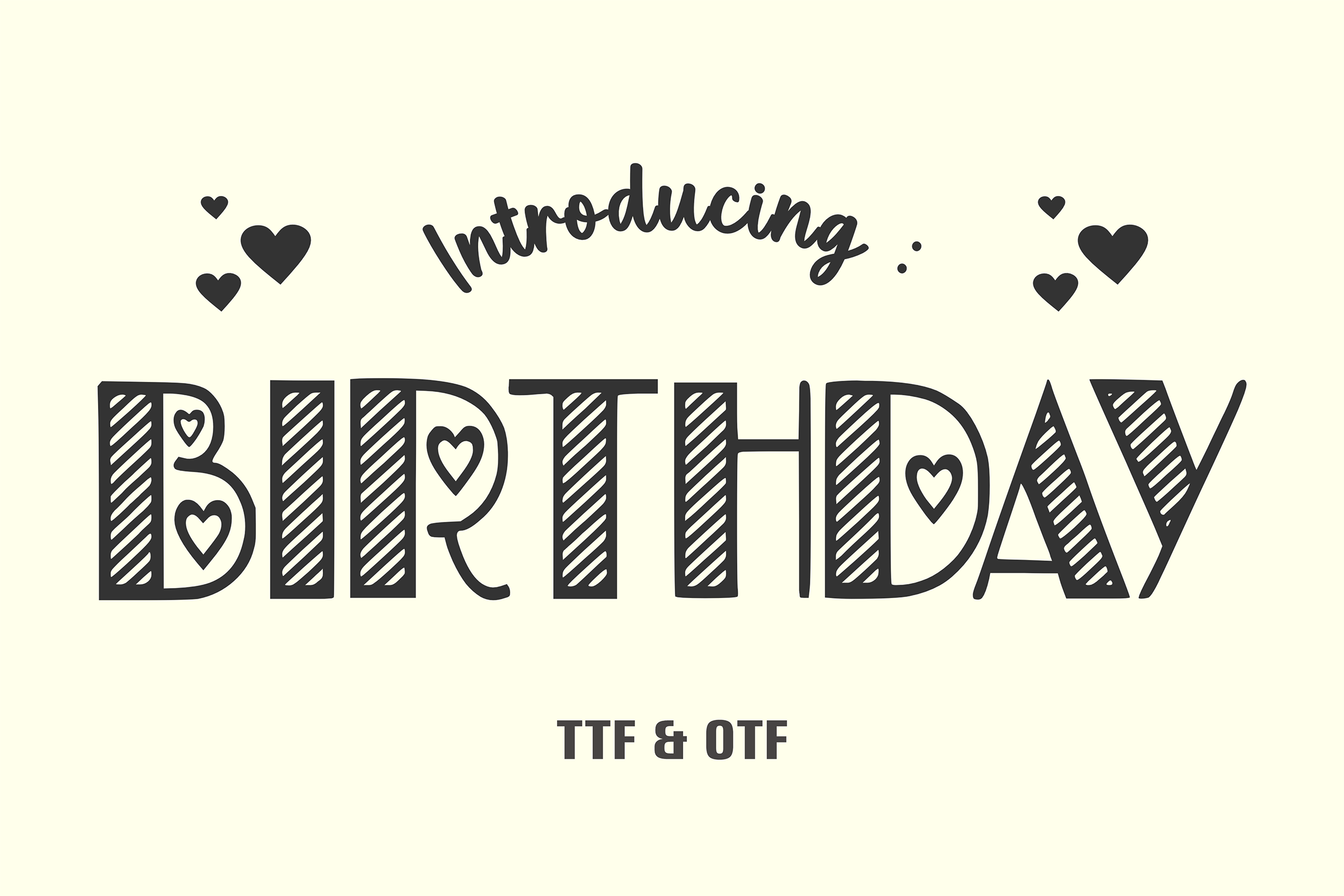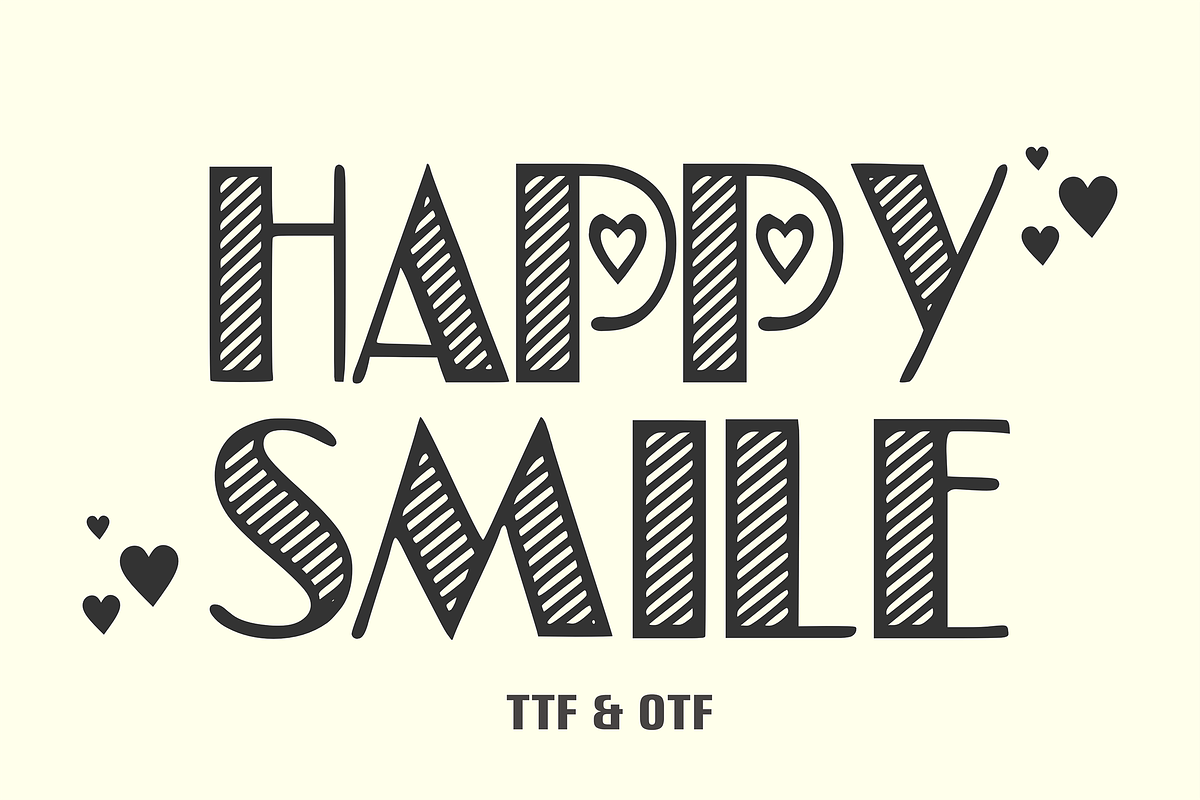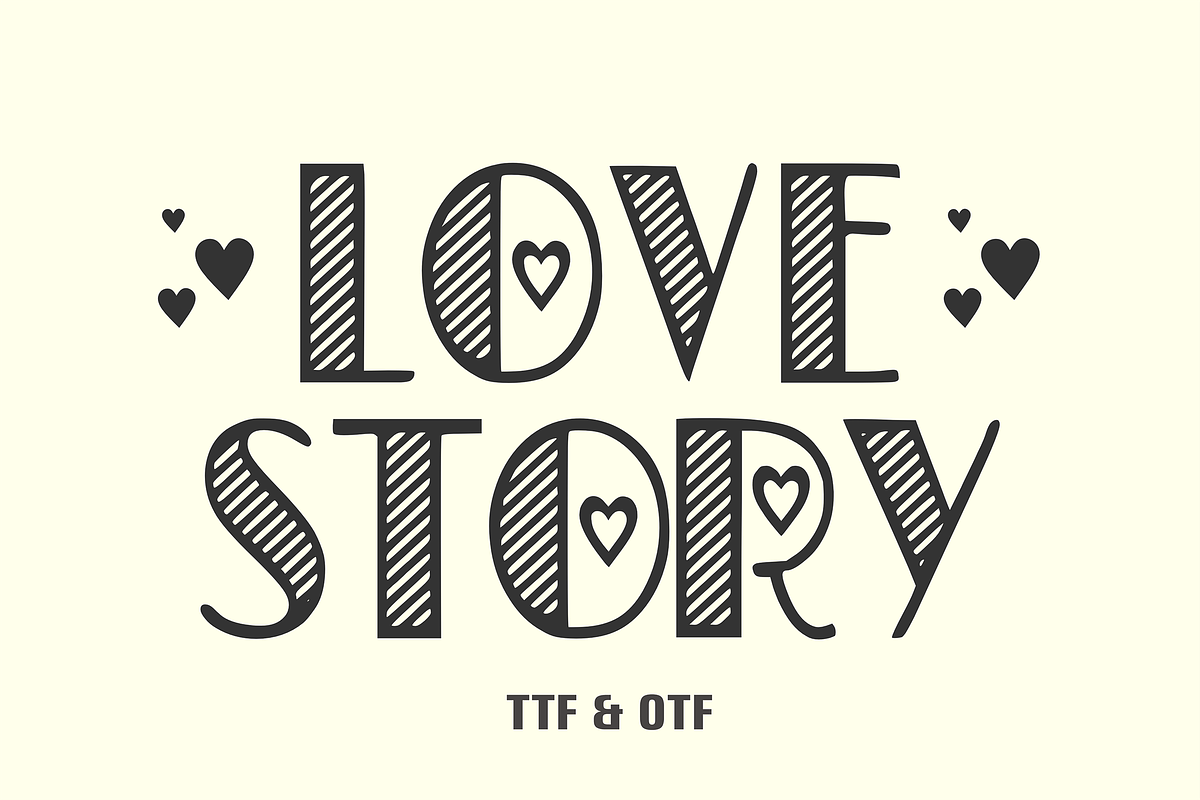
Birthday - Comic Font Types
Immerse yourself in fun and frolic with Birthday, an exuberantly decorative font, poised to splash your designs with uncurbed joy! Perfectly aligning with children’s themed funfests, Birthday captures the essence of enthusiastic celebrations and vivid imaginations. Transform book covers into vibrant narratives, posters into delightful visual treats, or marketing materials into jovial appeals with Birthday font. Let the magic of this animated typeface infuse whimsicality to decoration designs, or every imaginative project that comes your way. Birthday font – where merriment meets imagination in every stroke!